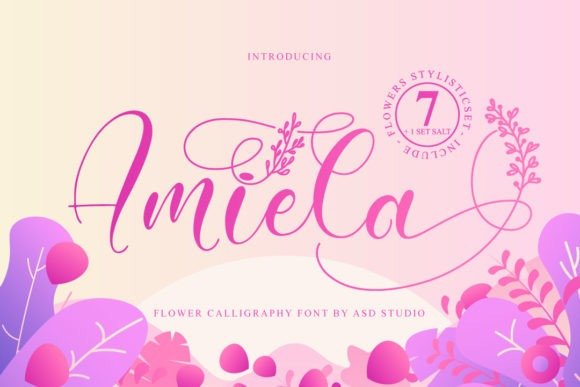
Amiela Calligraphy Font Free
Amiela Calligraphy Font is a flowing and elegant handwritten typeface. It features an incredibly classic style, while still keeping a friendly feel.
It comes with full set of uppercase and lowercase letters, swash alternates, ligatures,multilingual symbols, numerals and punctuation. Fall in love with its authentic feel and use it to create gorgeous wedding invitations, beautiful stationary art, eye-catching social media posts, and cute greeting cards.